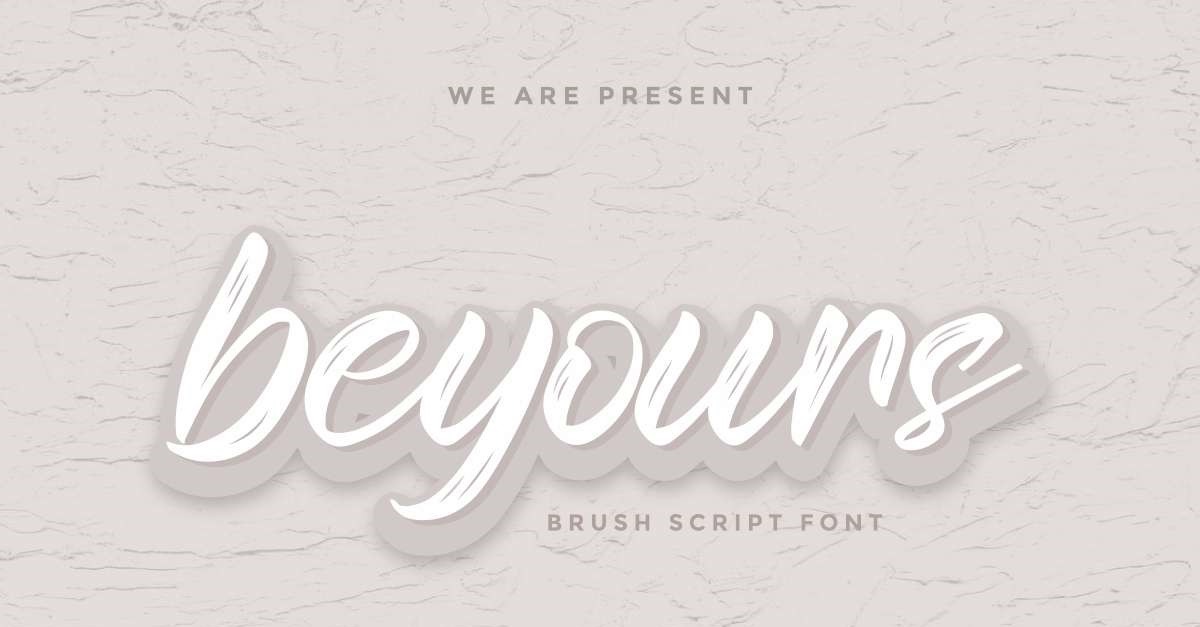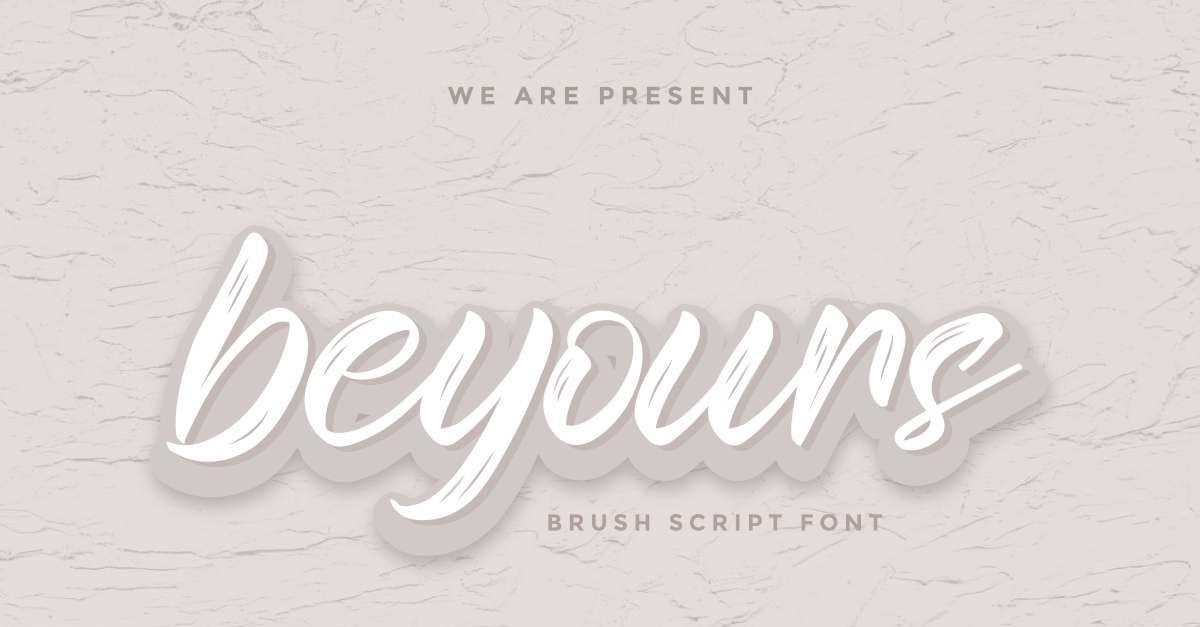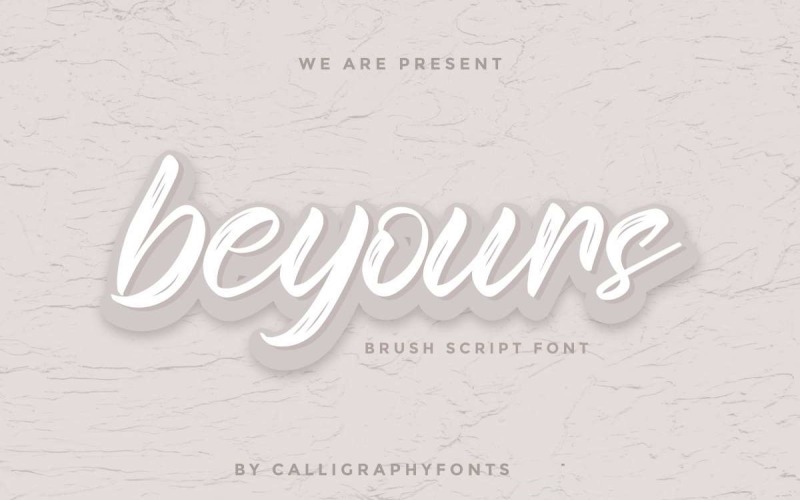
Beyours Font
Beyours Font is a Calligraphy script font. The style of this font are elegant, luxury, glamour, modern and sophisticated brush pen. Beyours will be great for any projects (with exntended license) including : branding, logo, stationery, business card, signage, flyer, brochure etc.